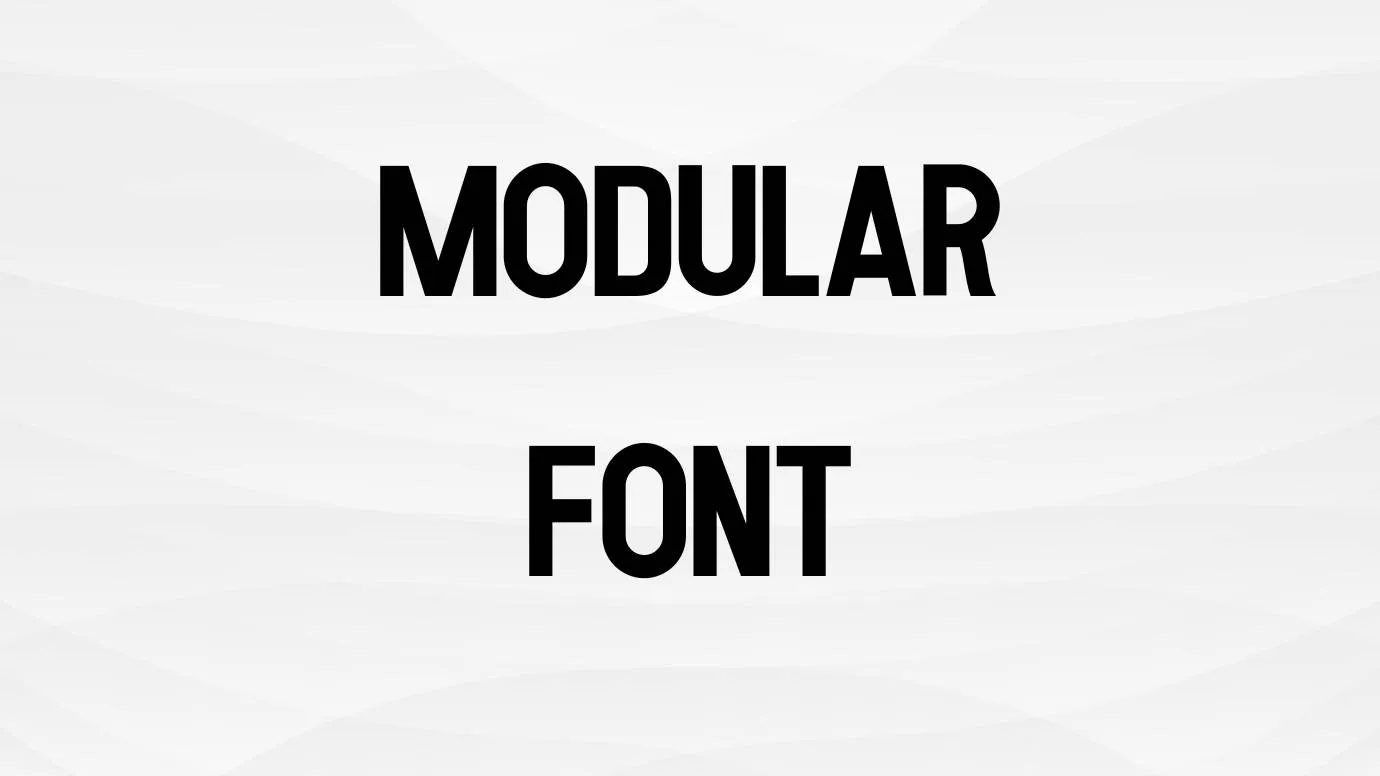
Modular Font
Modular Font Family comes in the sans-serif family. This classic typography was mainly developed by fortunes co. This awesome font family has bold, outlines, and regular weights. Due to its articulate and smooth look, the popularity of this font has huge popularity. This font family is good for amazing headlines as well as titling purposes. The modern features of this font are most useful for different projects.
This texture has a very friendly look that is appropriate for clean layout designs. The designers like the structure of this amazing font that is available for pairing with its similar typeface such as bud light logo font. It is easily specified in CSS for different design purposes. The generator tool of this typeface is the best option for converting simple designs to graphics.
NameModular Font
TypeSans Serif
Designerfortunes co
Features of Modular Font
• This outstanding typeface is best for use in the process of writing long and short paragraph designs. This texture is also good for making banner designs, flyers, ebook covers designs, emblems designs, and posters.
• You can easily pick this font for making letterhead designs, invoice designs, and documentation.
• You can use this amazing font for creating wallpaper and background image designs for PCs, Laptops, and Mobile Screens.
• This font family is suitable for use in logo designs, banner designs, brochure layouts, application designs, web page designs, postcard designs, and cool heading purposes.
What is a Modular Font?
This is a sans-serif type font that was designed by fortunes co. It comes with unique and fantastic styles.
Is Modular Font good font?
Of course, it is a good font that you can use to apply different types of designs that’s why it is a good font in the font market.
Is there any similar font to Modular Font?
Yes, Industry font is the best similar to this amazing typeface that makes your design more attractive and beautiful.